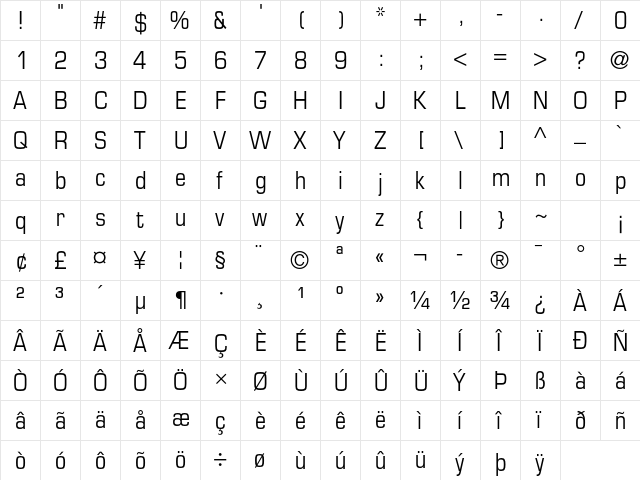
Eurostile LT Std Condensed Font Preview
| Style | Condensed |
| Designer | Aldo Novarese, A. Butti |
Design Context for Eurostile LT Std Typeface
Eurostile LT Std offers clean, dependable letterforms without strong stylistic allegiance, making it a practical choice for designers who need flexibility. Its slender proportions lend an understated elegance to any composition. The condensed width makes it efficient for tight spaces without sacrificing legibility.